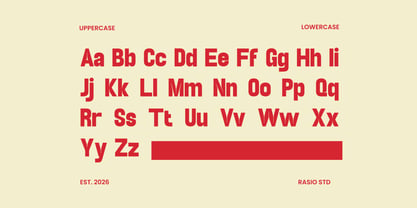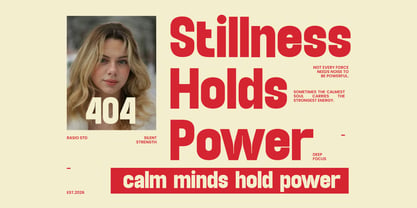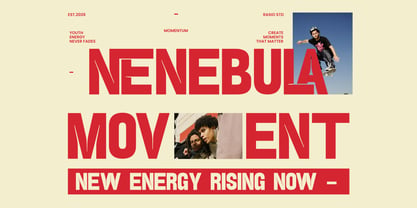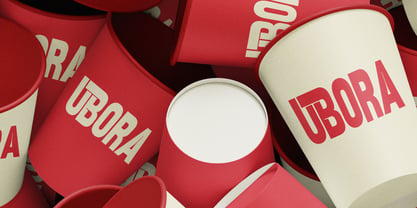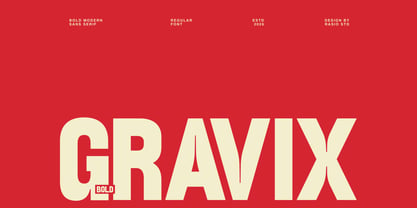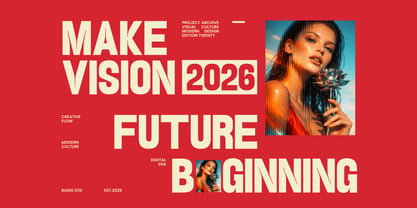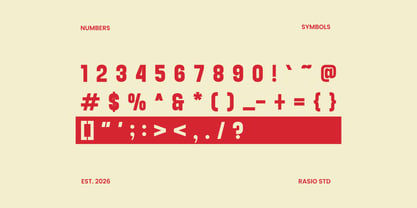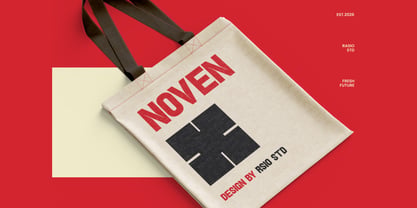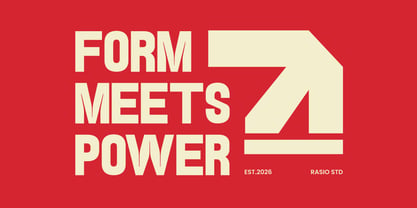
Gravix
by Rasio Studio
The Gravix Font Family was designed by Fajar Indra and published by Rasio Studio. Gravix contains 1 styles. More about this family
Gravix is a bold modern sans serif font designed with powerful geometric structures and strong condensed proportions. The letterforms feature thick strokes, sharp angles, and confident shapes that create a striking visual presence in large-scale typography and modern graphic compositions. Gravix is a bold modern sans serif font designed with powerful geometric structures and strong condensed proportions. The letterforms feature thick strokes, sharp angles, and confident shapes that create a striking visual presence in large-scale typography and modern graphic compositions.
Designers: Fajar Indra
Foundry: Rasio Studio